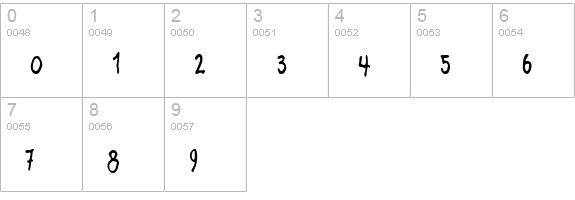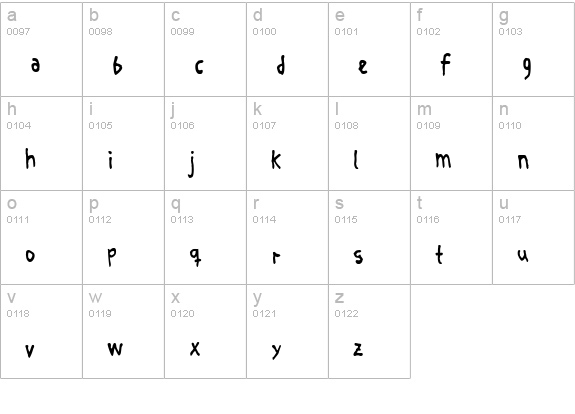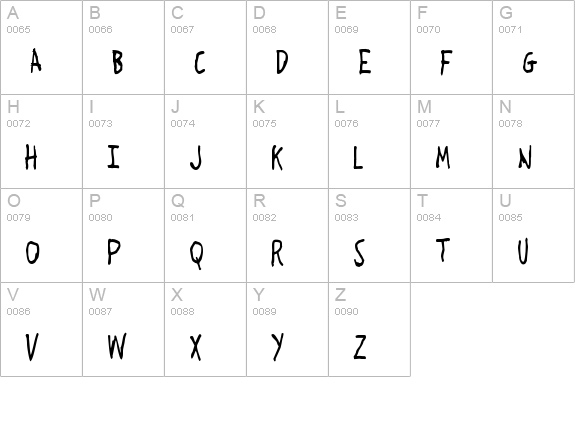
Crosspatchers delight normal is the standard, neutral variant in the Crosspatchers typeface family \xE2\x80\x94 well suited to general body text, paragraphs, and standard typographic work.
Crosspatchers Delight is a whimsical and playful font that is perfect for adding a touch of fun to your projects. With its intricate details and unique design, this font is sure to make your text stand out. Whether you're creating invitations, posters, or branding materials, Crosspatchers Delight is the perfect choice to add a touch of creativity. The best part? Crosspatchers Delight is freely available to download at FontsMarket.com. So why wait? Get your hands on this delightful font and start creating eye-catching designs today!